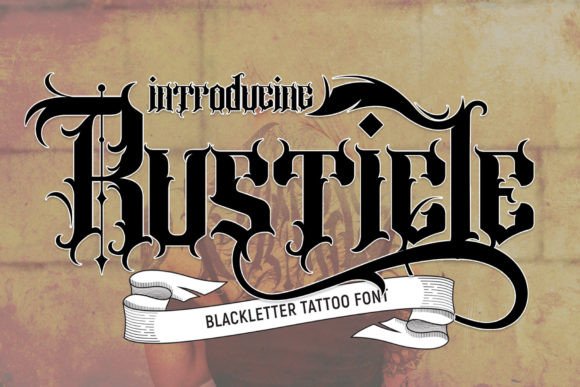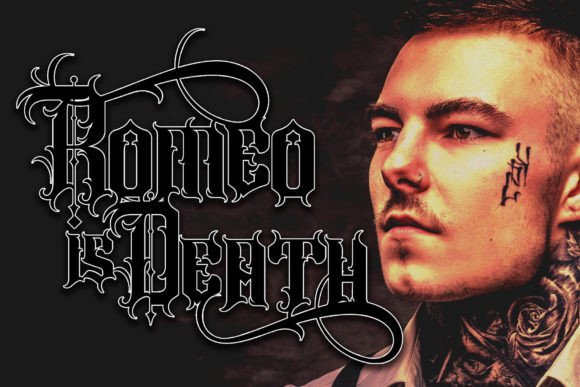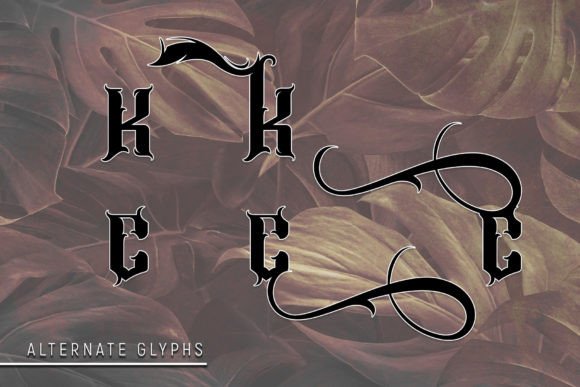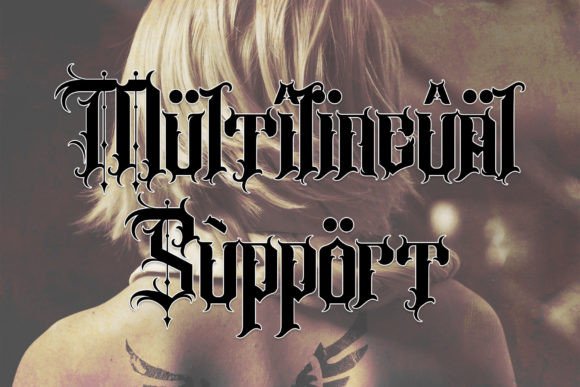
Rusticle Font: Bold Blackletter for Tattoo Designs & Grunge Typography
About the Rusticle Font
Let us introduce you to Rusticle Font, where timeless design meets modern craftsmanship. Rusticle is a contemporary blackletter tattoo font that feels right at home on logos, t-shirt designs, posters, flyers, and other brand identity items. Add it confidently to your projects, and you will love the results.
Rusticle’s bold, slightly rebellious personality makes it ideal for projects requiring a strong visual impact, such as edgy brand logos, motorcycle club insignia, or punk-rock concert posters. It excels in headlines and short text applications where its intricate details can be easily appreciated. However, avoid using it for body text or long paragraphs; its highly decorative nature hinders readability in extended use.
Consider pairing Rusticle with a clean sans-serif like Futura for a modern contrast, or a classic serif such as Garamond for a sophisticated juxtaposition of old and new. A simple, geometric sans-serif would also provide a good counterpoint to its organic blackletter forms.
For brands targeting a younger, alternative demographic, Rusticle’s unique character will resonate strongly. Its high contrast and decorative elements demand attention, making it less suitable for applications needing subtle elegance or minimalist aesthetics.